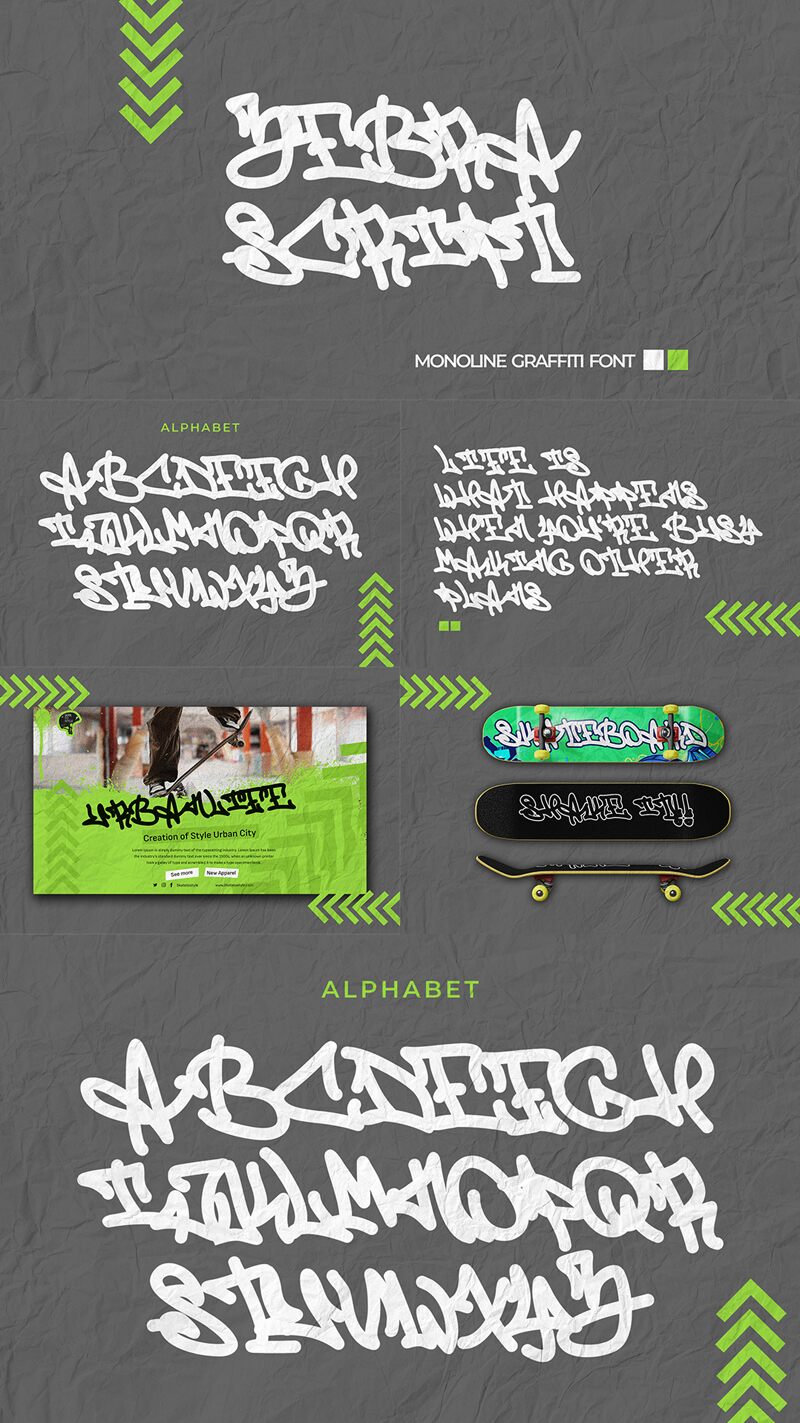
Zebra Script font designed by Cikareotype Studio is a free font inspired by urban design and dynamic street visuals. The style used is a perfect visual representation of contemporary artistic rebellion, which was at its height during about the 1980s. This font has an edgy and energetic appeal with bold statement-making qualities that can add much to any design. Character glyphs feature decorated letters with strokes and curves that transform them into objects of art.
Implement this brilliant typeface into any personal projects that you want to put a touch of artistic flair on. Posters, flyers, apparel designs, or even web projects targeting a youthful audience are all great suggestions.